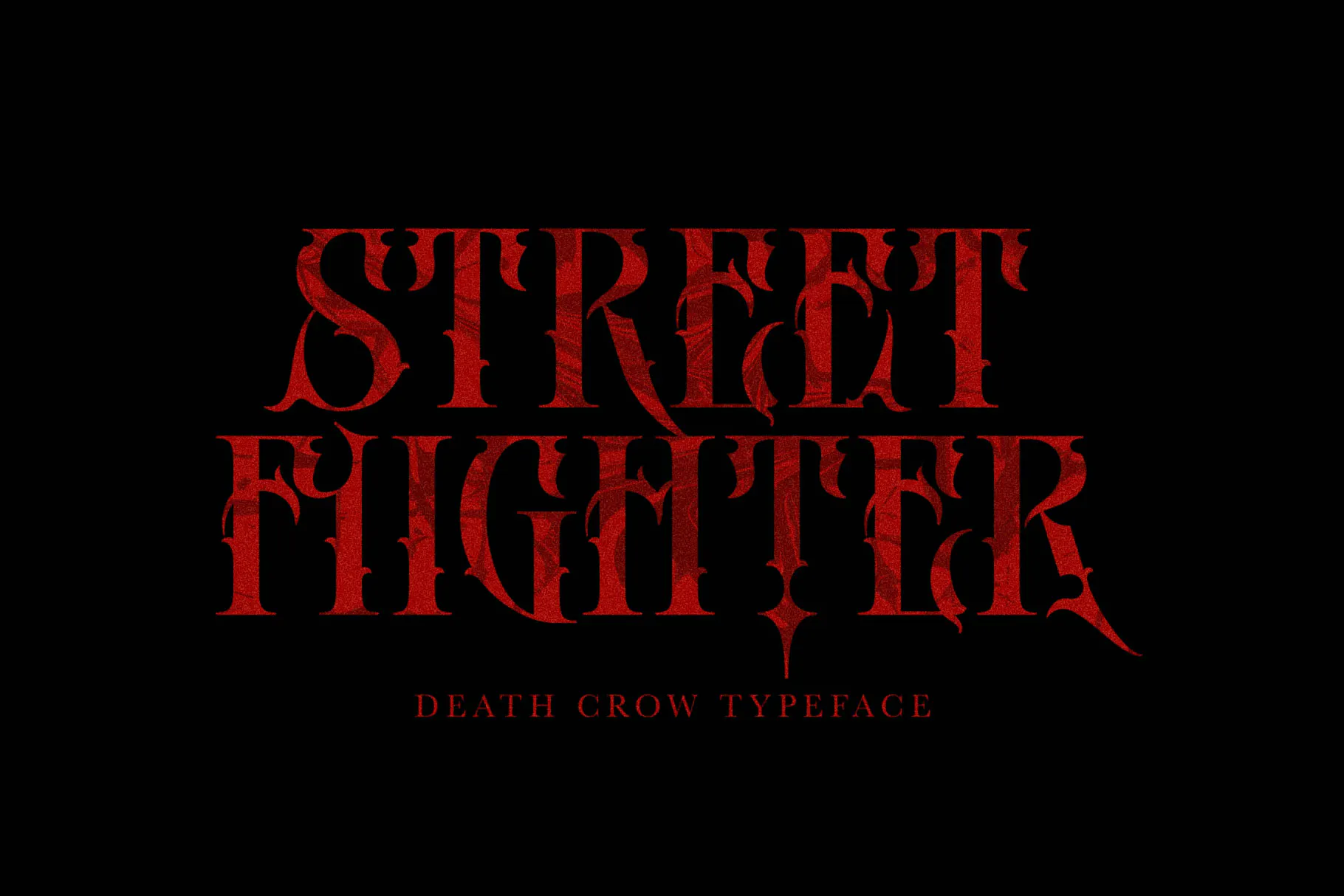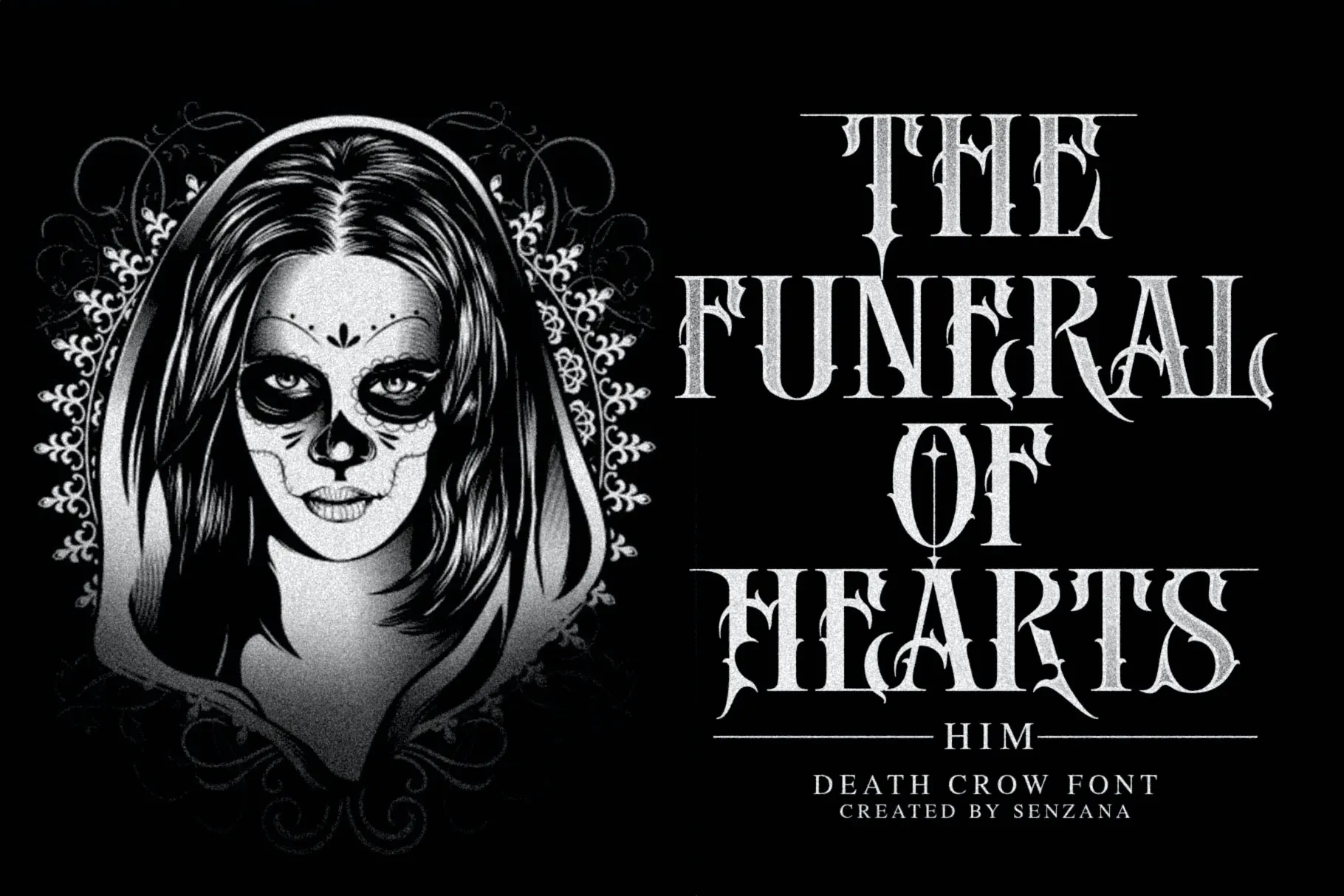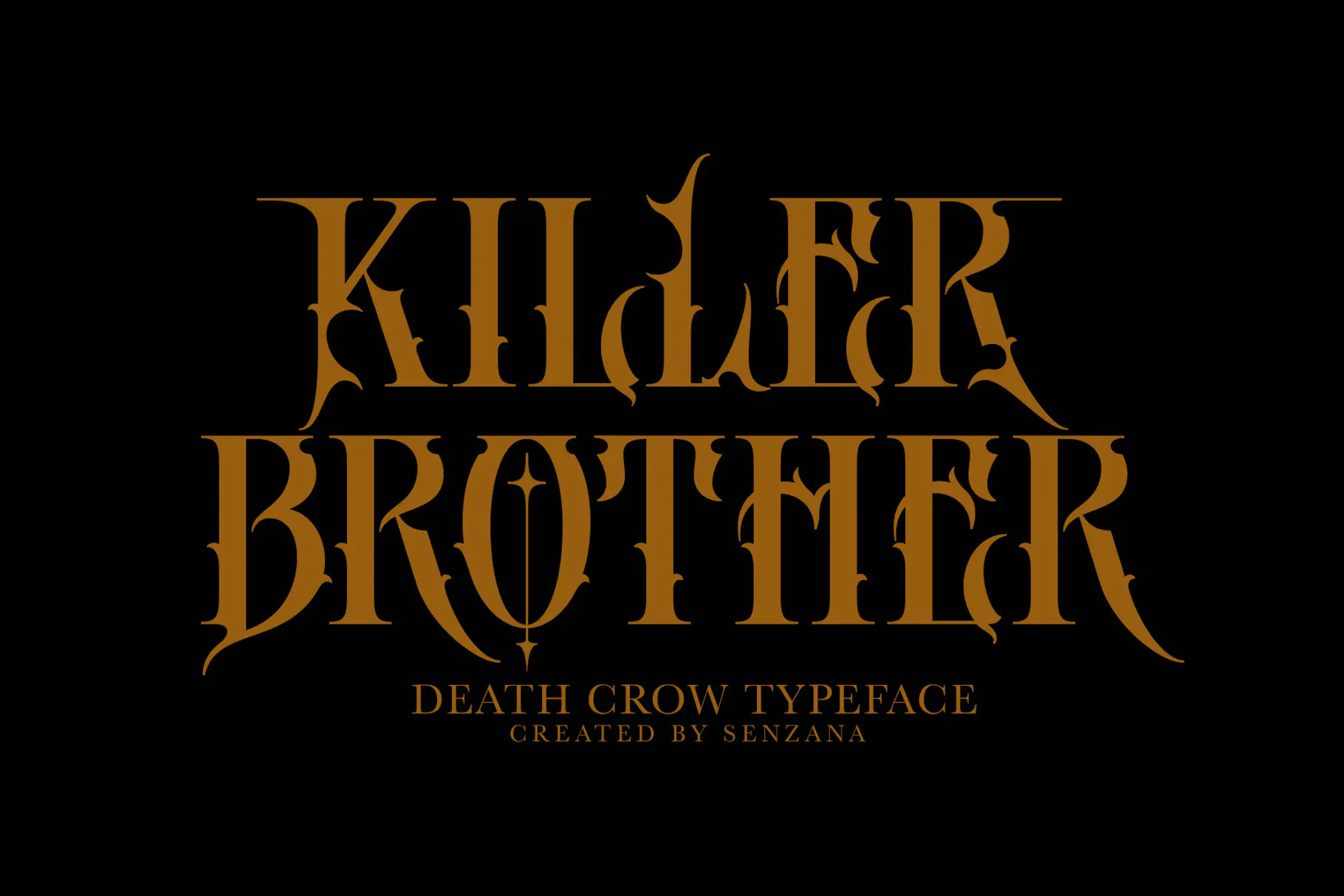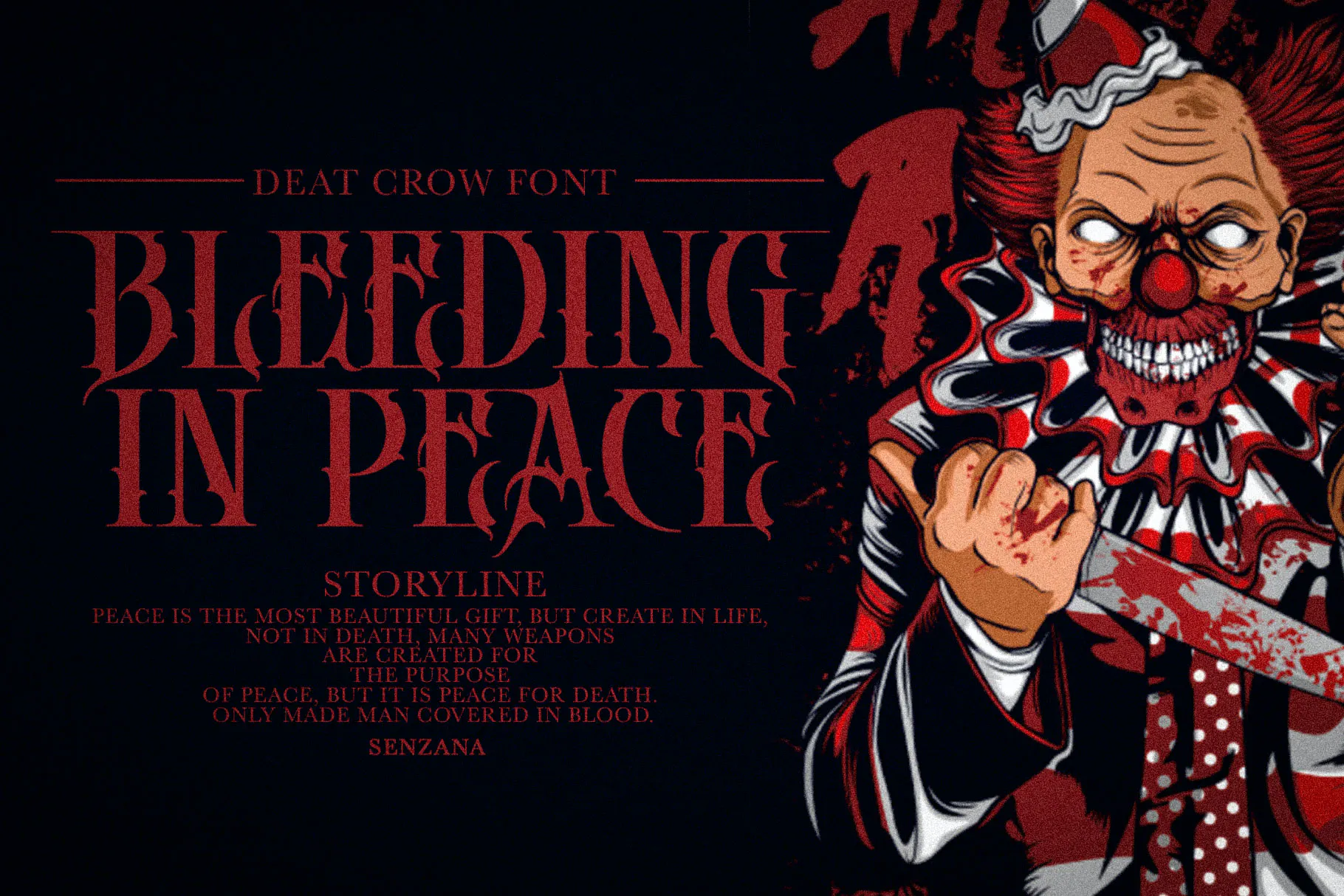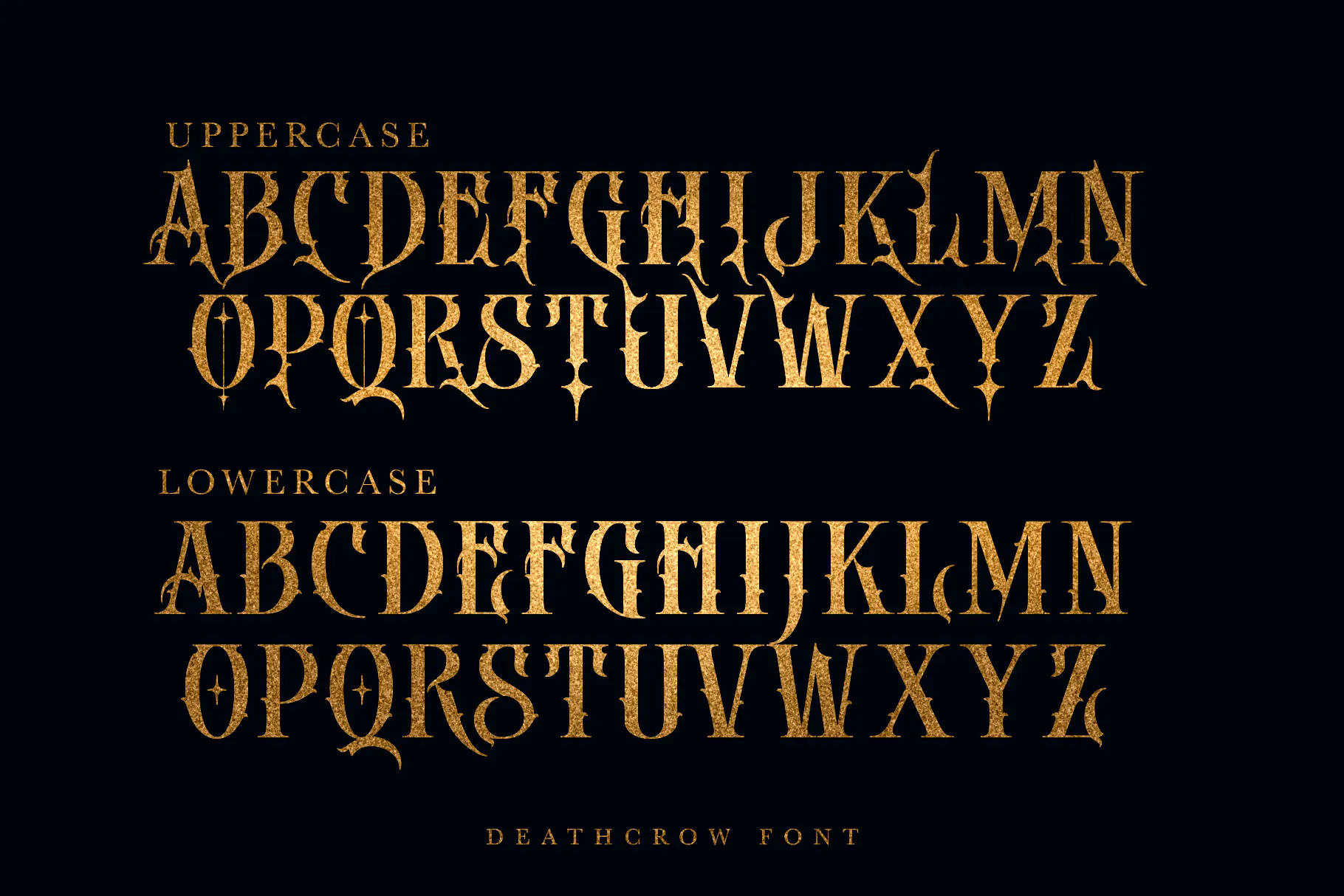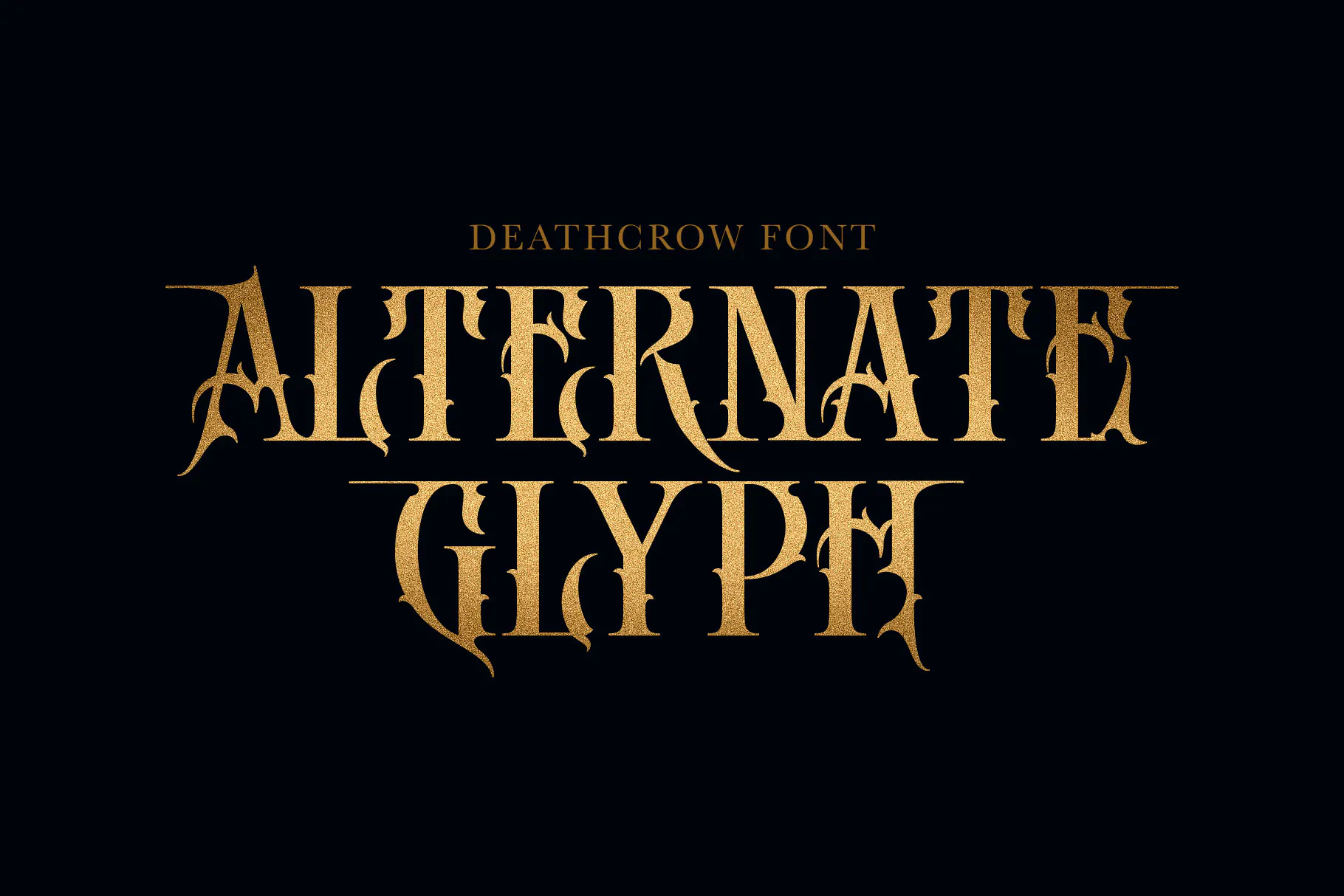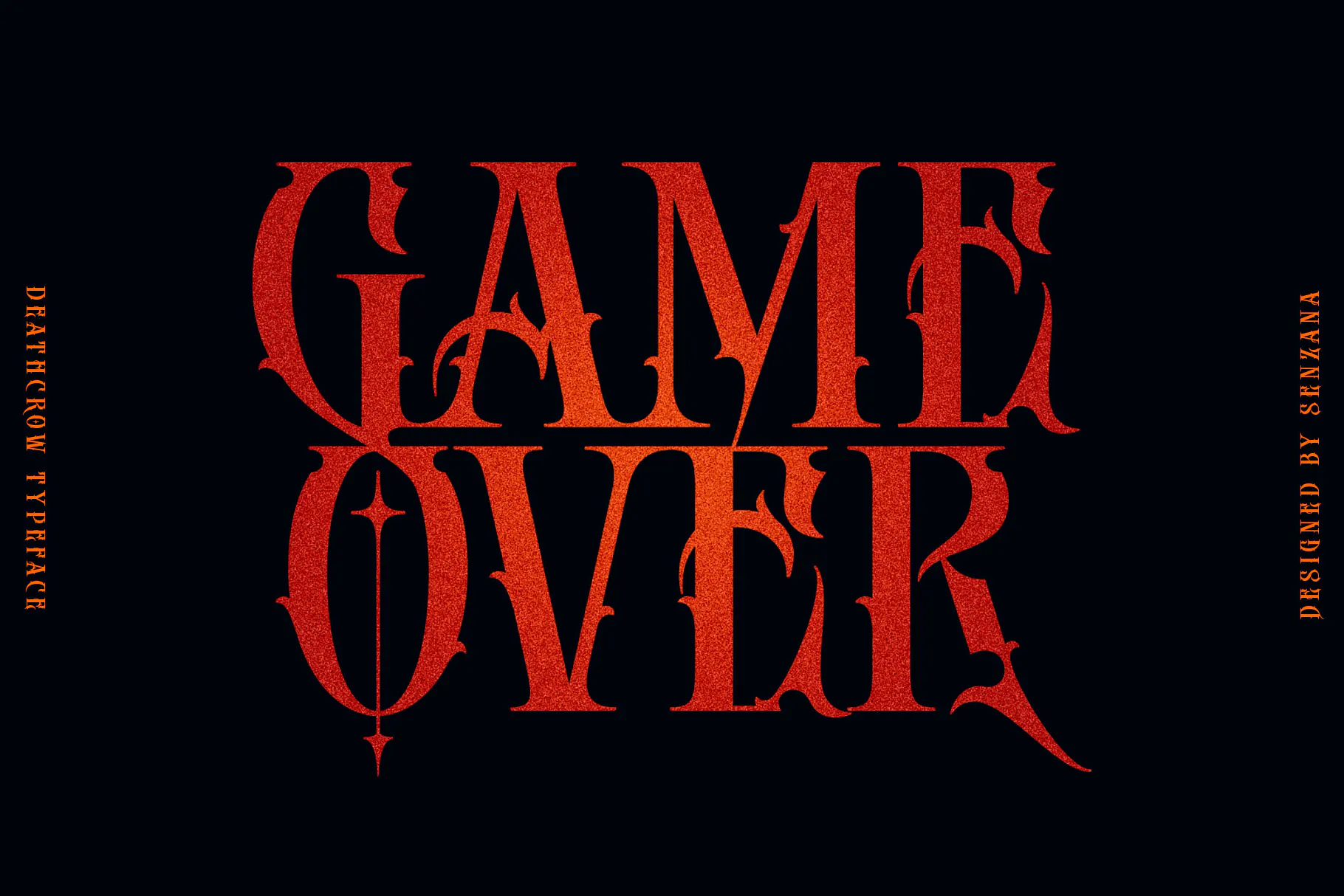
present our first product DEATH CROW FONT As we have seen, this font has a Gothic metal style that allows you to use this font to enhance your artwork, this font is suitable for completing illustration designs, logos, bands, etc.